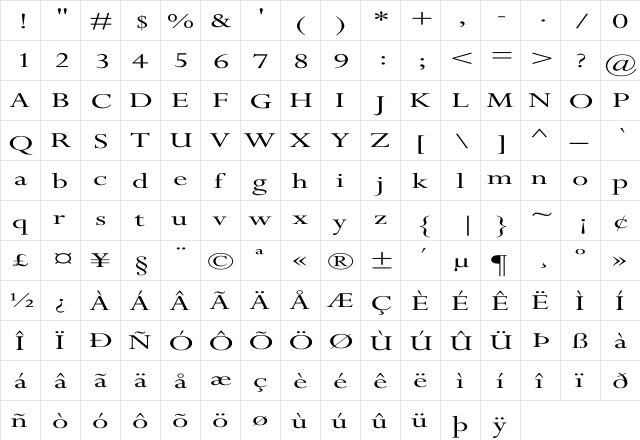
Perpetua Ex Regular Font Preview
Perpetua Ex Regular
Design Context for Perpetua Ex Typeface
Perpetua Ex offers clean, dependable letterforms without strong stylistic allegiance, making it a practical choice for designers who need flexibility.